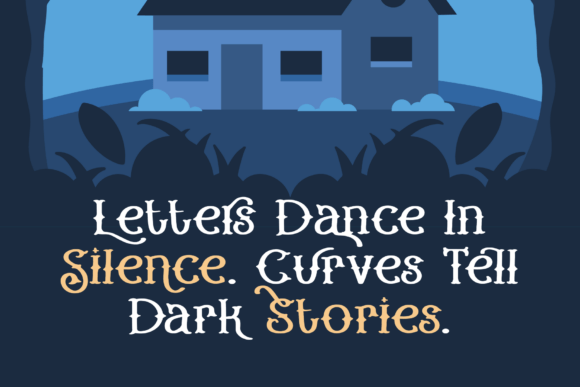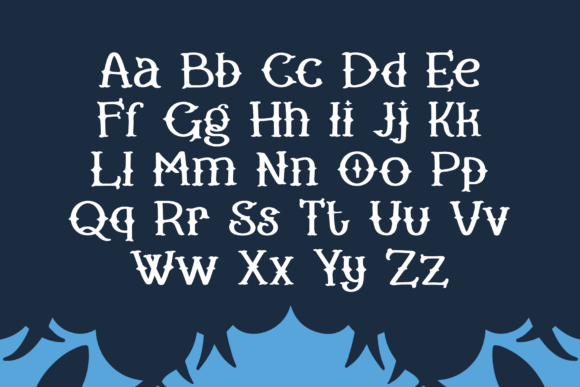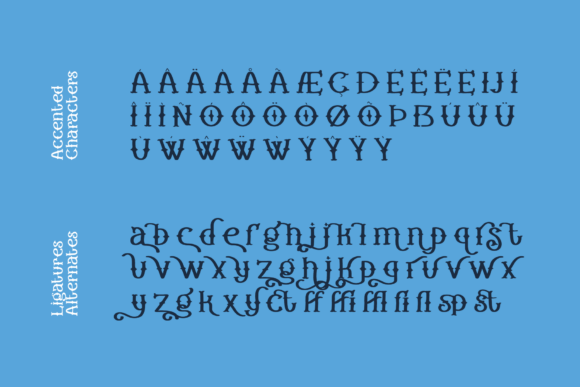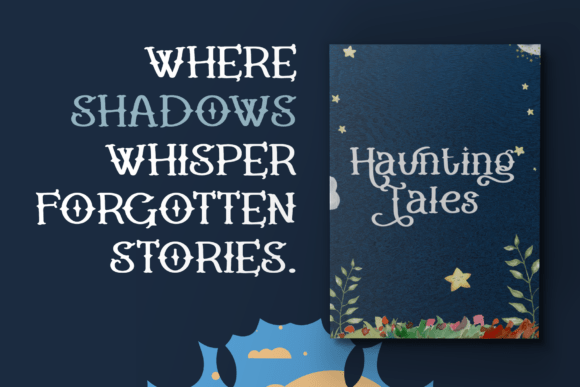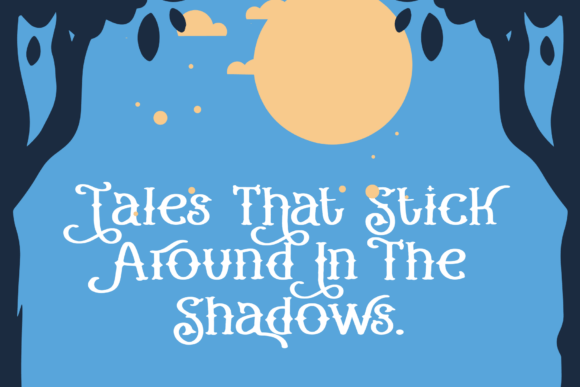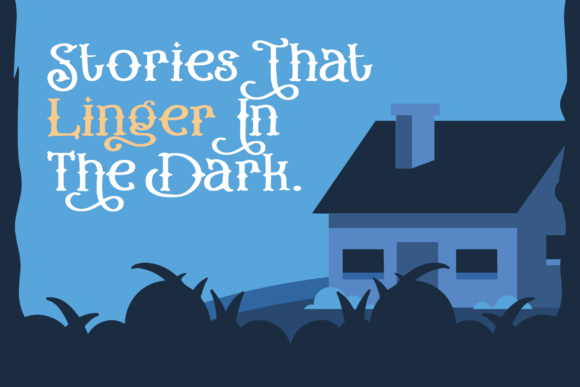
Unleash the Spirits of Storytelling with Ghost Scribe Font
Are you a designer, writer, or crafter looking for a font that can add a touch of mystery and intrigue to your projects? Look no further than Ghost Scribe, a captivating display font that breathes life into forgotten tales. With its hauntingly beautiful curves and elegant flourishes, Ghost Scribe is perfect for projects that demand a touch of the supernatural.
The Haunting Beauty of Ghost Scribe
Ghost Scribe’s design is inspired by the eerie and the unknown, making it an ideal choice for projects that require a sense of mystique. Its curves and flourishes evoke a sense of whispering secrets, making it perfect for book covers, Halloween invitations, and branding materials that need to leave a lasting impression. The font’s elegant design ensures that it can be used for a wide range of projects, from horror-themed designs to more subtle, mysterious applications.
Bringing Stories to Life
Imagine your book covers whispering secrets to potential readers, drawing them in with an otherworldly allure. Envision your Halloween invitations casting an enchanting spell, setting the tone for a night of thrills and chills. With Ghost Scribe, you can give your designs a voice from beyond, transporting your audience to a world of mystery and intrigue. Whether you’re a writer, designer, or crafter, Ghost Scribe provides the perfect tools to unleash your creativity and bring your stories to life.
A Font that’s an Experience
Ghost Scribe is more than just a font – it’s an experience. It’s a journey into the shadows, where letters dance in silence and curves tell dark stories. When you use Ghost Scribe, you’re not just choosing a font; you’re creating a mood, a atmosphere that draws your audience in and refuses to let go. Whether you’re designing a book cover, creating a logo, or crafting a Halloween invitation, Ghost Scribe provides the perfect blend of elegance and eeriness to make your project unforgettable.
Ghost Scribe is a versatile font that’s perfect for designers and crafters who want to add a touch of the supernatural to their projects. Whether you’re creating:
- Book covers that whisper secrets to potential readers
- Halloween invitations that cast an enchanting spell
- Branding materials that leave a lasting, ethereal impression
- Stationery and greeting cards that evoke a sense of mystery
Ghost Scribe provides the perfect blend of elegance and eeriness to make your project unforgettable.
Embracing the Allure of the Unknown
In a world where design is all about making a statement, Ghost Scribe provides a unique opportunity to give your projects a voice from beyond. By embracing the allure of the unknown, you can create designs that are not only visually stunning but also thought-provoking and hauntingly beautiful. So why settle for a ordinary font when you can unleash the spirits of storytelling with Ghost Scribe?
Key Features of Ghost Scribe
- Hauntingly beautiful curves and elegant flourishes
- Perfect for projects that demand a touch of the supernatural
- Versatile design suitable for a wide range of projects
- Elegant and eerie, making it perfect for horror-themed designs
- Provides a unique opportunity to give your designs a voice from beyond
| Font Name | Ghost Scribe Font |
| Author | Helotype |
Ghost Scribe is a captivating display font that can add a touch of mystery and intrigue to your projects. With its hauntingly beautiful curves and elegant flourishes, it’s perfect for designers and crafters who want to unleash the spirits of storytelling. Whether you’re creating book covers, Halloween invitations, or branding materials, Ghost Scribe provides the perfect blend of elegance and eeriness to make your project unforgettable. So why settle for an ordinary font when you can give your designs a voice from beyond with Ghost Scribe?